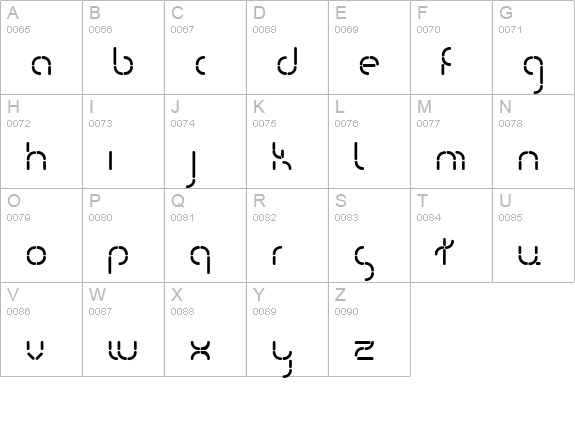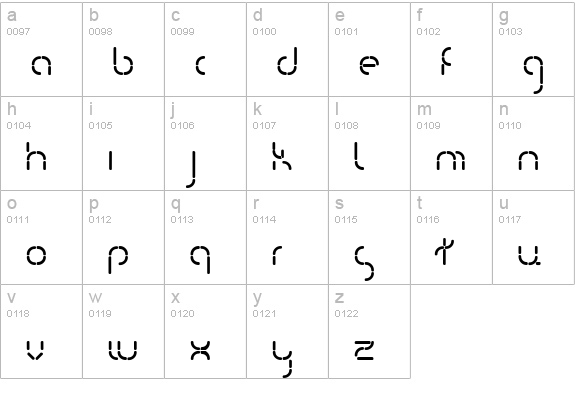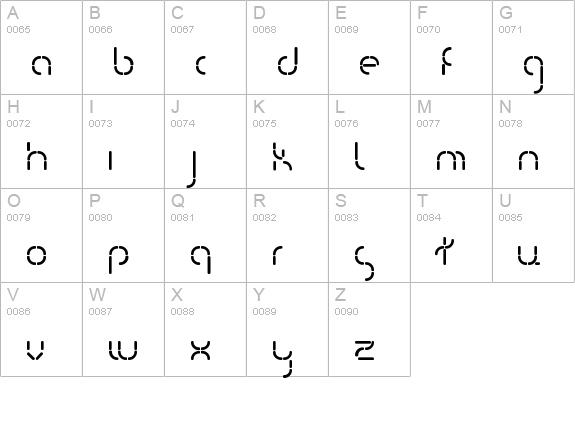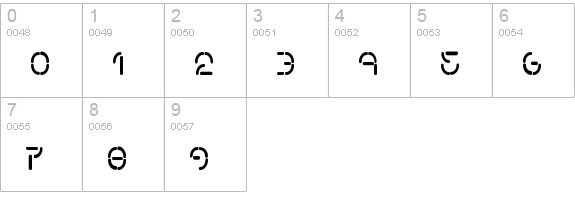
Kevlr Suit Font Details
Introducing the remarkable Kevlr Suit font, a stunning typeface that exudes elegance and sophistication. With its sleek lines and modern appeal, this font is perfect for adding a touch of class to any design project. What sets Kevlr Suit font apart is its incredible versatility. Whether you're creating a logo, designing a website, or crafting eye-catching headlines, this font effortlessly adapts to any style or concept. Its clean and crisp letterforms make it exceptionally legible, ensuring that your message will be conveyed with clarity and impact. But what truly sets Kevlr Suit font apart from the rest is that it is absolutely free! Yes, you read that right. This extraordinary font is freely available to download at FontsMarket.com. Now you can enhance your creative endeavors without breaking the bank. Downloading Kevlr Suit font is an effortless process. With just a few clicks, you can add this magnificent typeface to your collection and unlock endless design possibilities. Its extensive character set includes uppercase and lowercase letters, numerals, punctuation marks, and a selection of special characters, allowing you to fully express your creativity. Whether you're a professional designer or an aspiring artist, Kevlr Suit font is the perfect tool to elevate your work to new heights. Its sleek and modern aesthetic, combined with its accessibility and affordability, make it a must-have for anyone in the design world. So why wait? Embrace the elegance and versatility of Kevlr Suit font and let your creativity soar. Download it for free today at FontsMarket.com and embark on a design journey like no other.